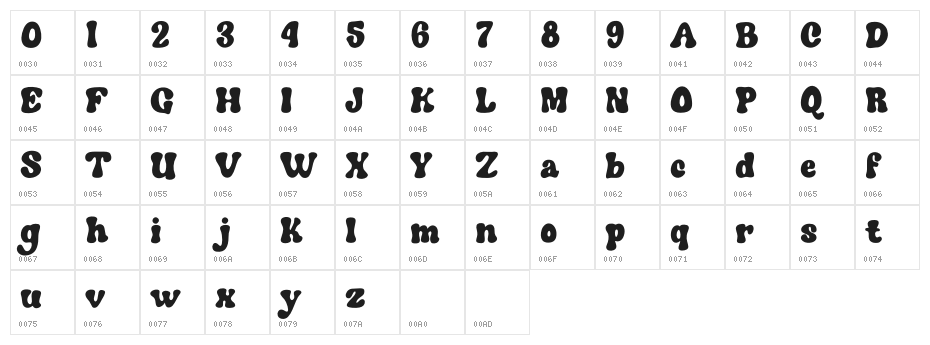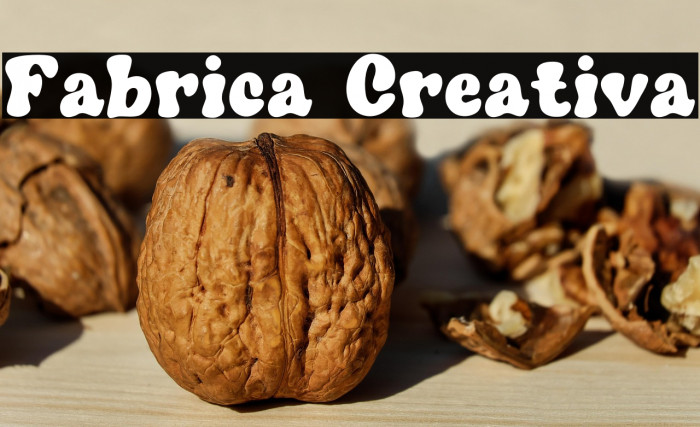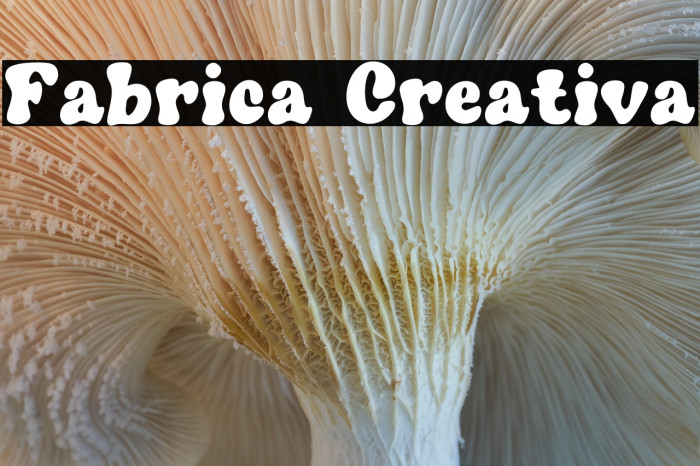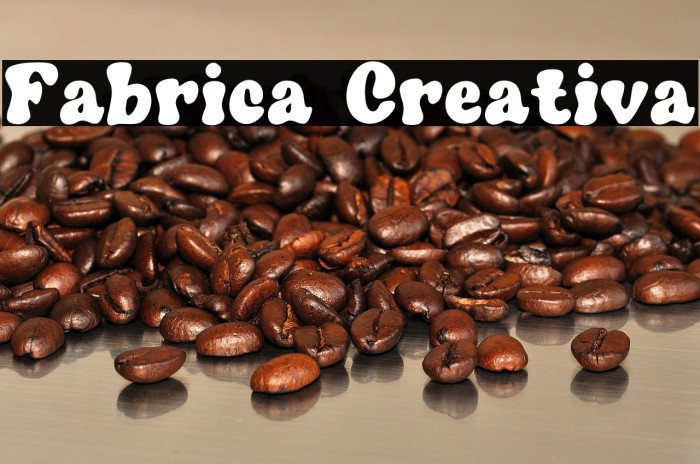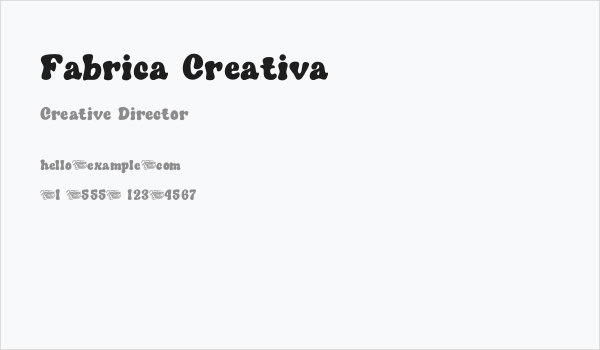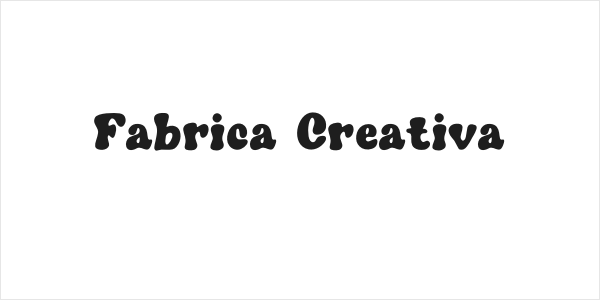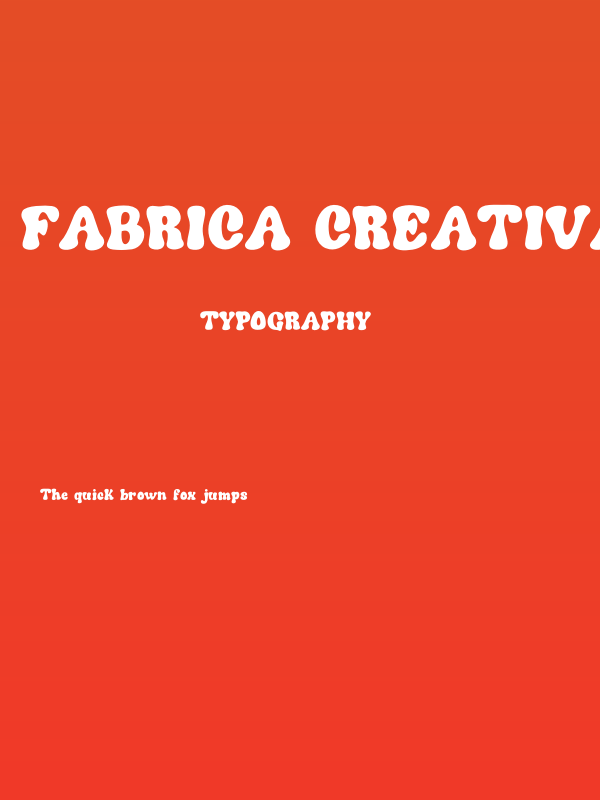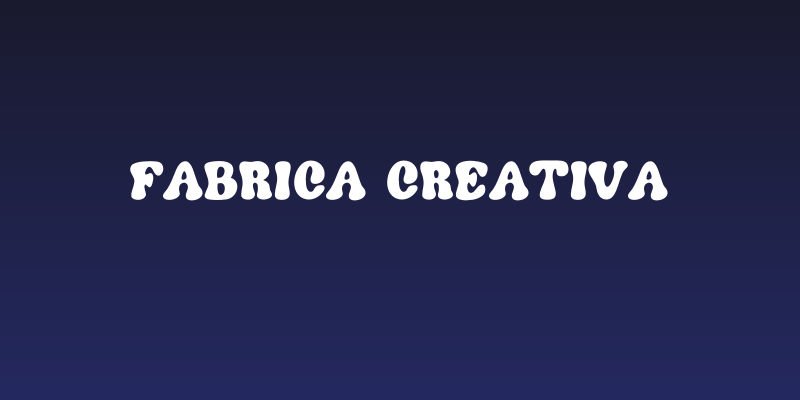
Fabrica Creativa Font
Fabrica Creativa Description
This font features a bold and playful design with rounded, bubbly characters that convey a sense of fun and creativity. The letters are thick and have a consistent weight throughout, giving them a strong presence. The rounded edges and exaggerated curves add a whimsical touch, making it ideal for projects that require a lively and engaging aesthetic. The numbers and special characters maintain the same playful style, ensuring consistency across all text elements.